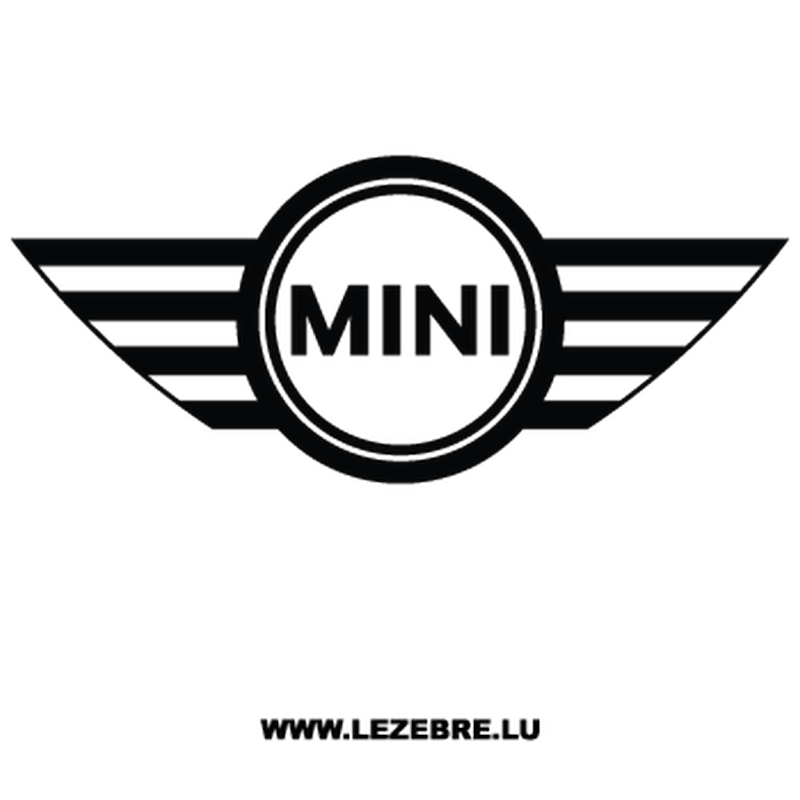
Mini Logo Font . The new mini serif font also reinforces the new brand image. This minimalistic approach stands out visually and can be used in all sizes and formats. The new mini serif font also reinforces the new brand image. Officially it's a modified version of the arial font designed specifically for bmw to use with their literature. Red, green, and a few other. Can anyone tell me what the font is that cooper is written in on the back of the mini? The new mini font is geared towards the user, easy. The official one cannot be. This minimalistic approach stands out visually and can be used in all sizes and formats. It was developed from a. The logo stands for itself, with no imitation of material or shape. The font, mini serif reflects the brand’s strong design orientation, shows its quality and sees the contrast between tradition and modernity. A “flat design” 2d logo has been developed from the existing 3d logo for high recognition value:
The font, mini serif reflects the brand’s strong design orientation, shows its quality and sees the contrast between tradition and modernity. Can anyone tell me what the font is that cooper is written in on the back of the mini? It was developed from a. This minimalistic approach stands out visually and can be used in all sizes and formats. The new mini serif font also reinforces the new brand image. The new mini font is geared towards the user, easy. The logo stands for itself, with no imitation of material or shape. A “flat design” 2d logo has been developed from the existing 3d logo for high recognition value: Red, green, and a few other. The new mini serif font also reinforces the new brand image.
Mini Logo Font Red, green, and a few other. It was developed from a. A “flat design” 2d logo has been developed from the existing 3d logo for high recognition value: The new mini font is geared towards the user, easy. Red, green, and a few other. Officially it's a modified version of the arial font designed specifically for bmw to use with their literature. The new mini serif font also reinforces the new brand image. This minimalistic approach stands out visually and can be used in all sizes and formats. The logo stands for itself, with no imitation of material or shape. This minimalistic approach stands out visually and can be used in all sizes and formats. Can anyone tell me what the font is that cooper is written in on the back of the mini? The font, mini serif reflects the brand’s strong design orientation, shows its quality and sees the contrast between tradition and modernity. The official one cannot be. The new mini serif font also reinforces the new brand image.
Mini Cooper S Logo Vector, HD Png Download kindpng Mini Logo Font It was developed from a. The new mini font is geared towards the user, easy. The new mini serif font also reinforces the new brand image. The official one cannot be. Red, green, and a few other. This minimalistic approach stands out visually and can be used in all sizes and formats. A “flat design” 2d logo has been developed. Mini Logo Font.
Mini Logo, HD Png, Meaning, Information Mini Logo Font Red, green, and a few other. The official one cannot be. This minimalistic approach stands out visually and can be used in all sizes and formats. The new mini font is geared towards the user, easy. The logo stands for itself, with no imitation of material or shape. Can anyone tell me what the font is that cooper is written. Mini Logo Font.
M&M's Mini (Rhapsody) Logofanonpedia FANDOM powered by Wikia Mini Logo Font This minimalistic approach stands out visually and can be used in all sizes and formats. The font, mini serif reflects the brand’s strong design orientation, shows its quality and sees the contrast between tradition and modernity. A “flat design” 2d logo has been developed from the existing 3d logo for high recognition value: The new mini font is geared towards. Mini Logo Font.
Simple Most Common Logo Fonts For Logo Design Typography Art Ideas Mini Logo Font The new mini font is geared towards the user, easy. It was developed from a. A “flat design” 2d logo has been developed from the existing 3d logo for high recognition value: This minimalistic approach stands out visually and can be used in all sizes and formats. The logo stands for itself, with no imitation of material or shape. This. Mini Logo Font.
Mini Cooper Logo Font Mini Logo Font This minimalistic approach stands out visually and can be used in all sizes and formats. Can anyone tell me what the font is that cooper is written in on the back of the mini? The new mini serif font also reinforces the new brand image. The new mini font is geared towards the user, easy. Officially it's a modified version. Mini Logo Font.
Mini Logo Symbol, History, PNG (3840*2160) Mini Logo Font The logo stands for itself, with no imitation of material or shape. Officially it's a modified version of the arial font designed specifically for bmw to use with their literature. This minimalistic approach stands out visually and can be used in all sizes and formats. This minimalistic approach stands out visually and can be used in all sizes and formats.. Mini Logo Font.
MINI gets a new logo and branding Mini Logo Font This minimalistic approach stands out visually and can be used in all sizes and formats. This minimalistic approach stands out visually and can be used in all sizes and formats. Can anyone tell me what the font is that cooper is written in on the back of the mini? The new mini font is geared towards the user, easy. A. Mini Logo Font.
Mini Cooper Logo LogoDix Mini Logo Font The new mini serif font also reinforces the new brand image. The font, mini serif reflects the brand’s strong design orientation, shows its quality and sees the contrast between tradition and modernity. It was developed from a. The logo stands for itself, with no imitation of material or shape. The new mini serif font also reinforces the new brand image.. Mini Logo Font.
50+ Best Fonts for Logo Design Design Shack Mini Logo Font The new mini serif font also reinforces the new brand image. This minimalistic approach stands out visually and can be used in all sizes and formats. Can anyone tell me what the font is that cooper is written in on the back of the mini? Red, green, and a few other. The official one cannot be. The font, mini serif. Mini Logo Font.